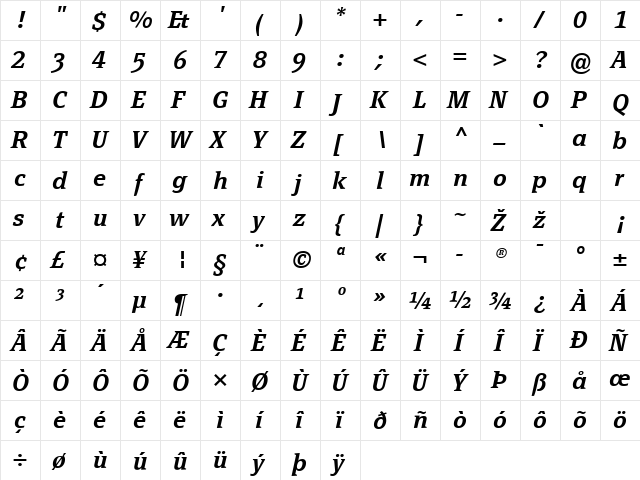
PageSerifTF-DemiBoldItalic Regular Font Preview
| Foundry | Albert Boton, published by FontShop International for the FontFont Library |
| Designer | Albert Boton |
Design Context for PageSerifTF-DemiBoldItalic Typeface
PageSerifTF-DemiBoldItalic brings classic typographic sensibility to the table — its serifs and measured letterforms reflect centuries of print heritage. The dynamic lean of this cut emphasises speed and emphasis in any layout. The heavy weight commands attention and anchors typographic hierarchies.